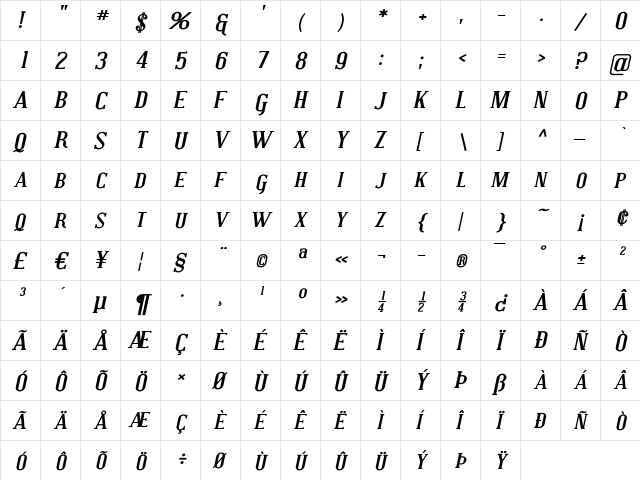
Covington SC Exp Bold Italic Font Preview
Design Context for Covington SC Exp Typeface
Covington SC Exp is a composed and adaptable typeface that performs quietly and consistently across a wide range of design contexts. Its italic angle brings a sense of urgency and motion to the letterforms. The heavy weight commands attention and anchors typographic hierarchies.
Pro Tip: Try Covington SC Exp for annotation and caption copy alongside an upright companion — the contrast in angle creates a dynamic but ordered typographic system.